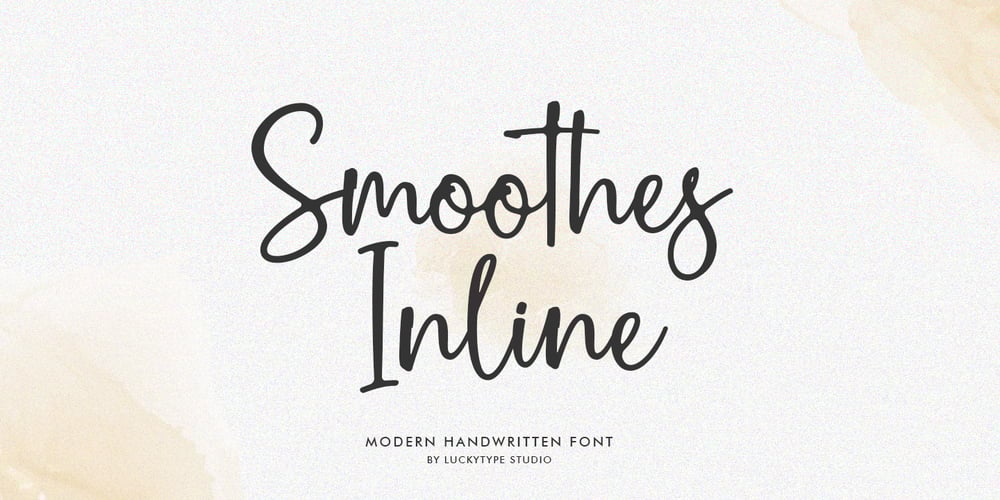
Smoothes Inline
Smoothes Inline font
Smoothes Inline Font Family was designed by Muhammad Fajar and published by Lucky Type. Smoothes Inline contains 1 styles and family package options. Smoothes Inline is a new handwritten script font featuring a playful style and will suit all kinds of design goals. This font would be perfect especially for print design projects or website needs.Smoothes Inline has multiple language support and has more than 50 ligatures that will enhance your writing.thank you very much for looking.